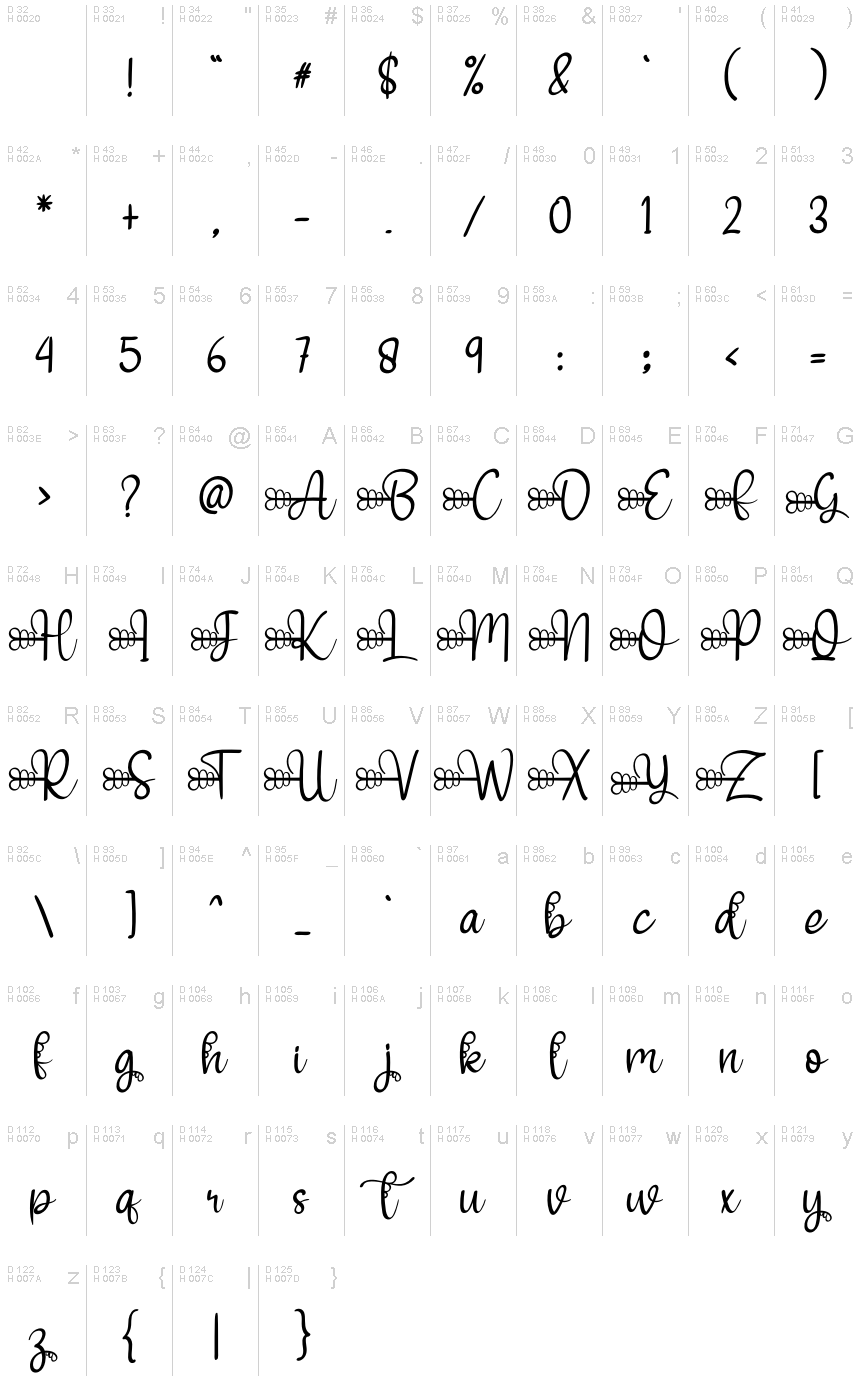
Creative Holiday
Creative Holiday, a masterful creation by Scratchones, invites you into a world where every character is a celebration of artistic flair. This handwritten, decorative font dances with creativity and charm, perfect for capturing the essence of festive cheer or adding a personal touch to special occasions. Its fluid lines and playful loops reflect a light-hearted style, while the decorative elements offer a hint of whimsy. Each stroke in Creative Holiday is crafted with care, resulting in an elegant yet approachable script that's both versatile and visually delightful.
Whether it's for greeting cards, invitations, or branding projects that require a personal touch, this font ensures your message is conveyed with both warmth and originality.